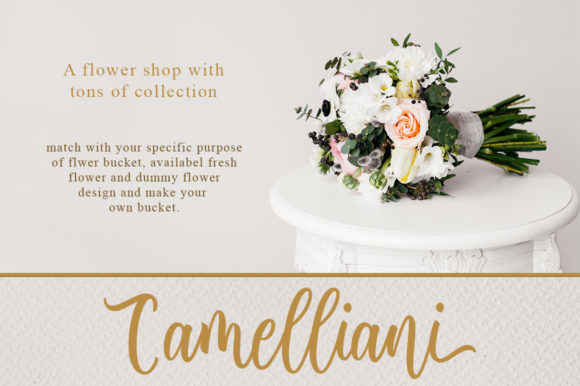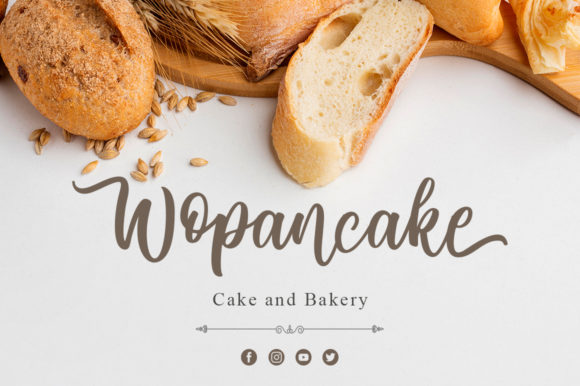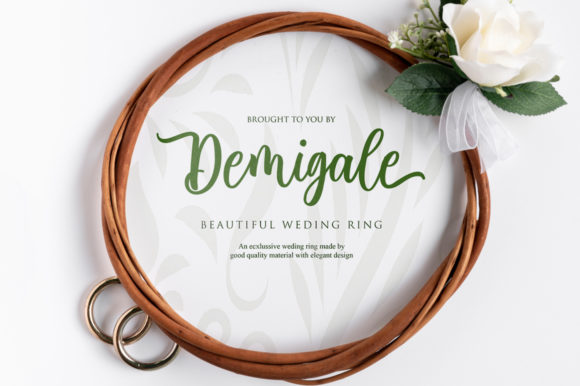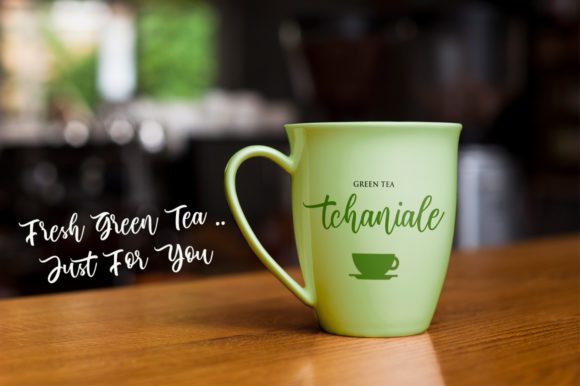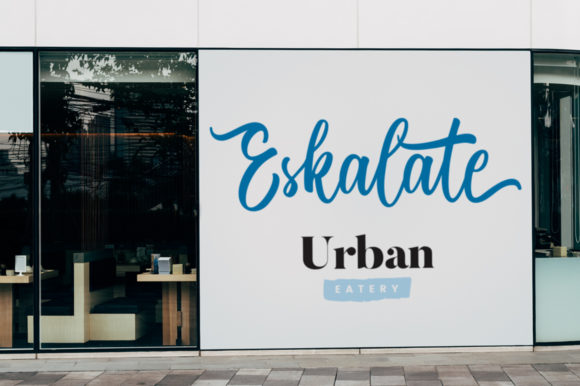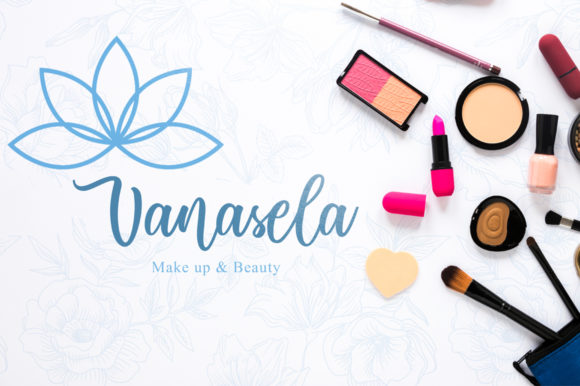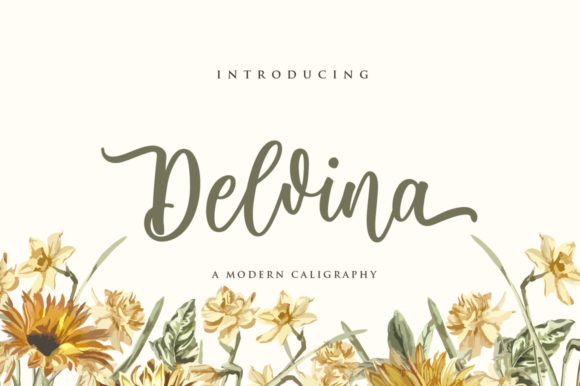
Introducing Delvina Font: Elevate Your Designs with Elegance
Are you on the hunt for a font that exudes sophistication and style? Look no further than Delvina Font, a stunning handwritten font that is sure to capture your heart. With its elegant touch and flowing script, Delvina is the perfect addition to your favorite projects. In this article, we’ll dive into the world of Delvina Font, exploring its unique features, benefits, and uses, and why it’s a must-have for designers and crafters alike.
The Distinctive Style of Delvina Font
Delvina Font boasts an incredibly distinct and timeless style that sets it apart from other fonts. Its elegant, cursive script flows effortlessly across the page, evoking a sense of luxury and refinement. Whether you’re working on a branding project, creating a stylish invitation, or designing a beautiful blog, Delvina Font is the perfect choice. Its unique character is sure to leave a lasting impression on your audience, making your designs stand out from the crowd.
One of the standout features of Delvina Font is its PUA (Private Use Area) encoding. This means that you can access all of the glyphs and swashes with ease, giving you complete creative control over your designs. With PUA encoding, you can effortlessly navigate the font’s extensive character set, including ligatures, alternates, and ornaments. This feature makes it simple to customize your text, adding a personal touch to your projects.
Delvina Font is a versatile font that is perfect for a wide range of design applications. Whether you’re a professional designer, a crafter, or a DIY enthusiast, this font is sure to become a favorite. Here are just a few ways you can use Delvina Font:
- Branding and Logo Design: Create a lasting impression with Delvina Font’s elegant script. Use it to craft a unique logo that reflects your brand’s personality and style.
- Stationery and Invitations: Add a touch of sophistication to your stationery, invitations, and greeting cards. Delvina Font is perfect for creating beautiful, eye-catching designs that will leave a lasting impression.
- Blog and Website Design: Elevate your blog or website with Delvina Font’s flowing script. Use it to create stunning headings, titles, and captions that will engage your audience.
- Crafting and DIY Projects: Delvina Font is also perfect for crafters and DIY enthusiasts. Use it to create beautiful signs, banners, and other decorative items for your home or as gifts.
Why Choose Delvina Font?
With so many fonts available, why choose Delvina Font? Here are just a few reasons why this font stands out:
- Unique and Timeless Style: Delvina Font boasts a distinctive and elegant style that will never go out of fashion.
- Ease of Use: With PUA encoding, accessing glyphs and swashes is easy, making it simple to customize your text.
- Versatility: Delvina Font is perfect for a wide range of design applications, from branding and logo design to crafting and DIY projects.
- High-Quality Design: Delvina Font is designed to the highest standards, ensuring that your designs look professional and polished.
| Font Name | Delvina Font |
| Author | fanastudio |
In conclusion, Delvina Font is a stunning handwritten font that is sure to elevate your designs. With its elegant touch, flowing script, and PUA encoding, this font is perfect for designers and crafters alike. Whether you’re working on a branding project, creating a stylish invitation, or designing a beautiful blog, Delvina Font is the perfect choice. So why wait? Fall in love with Delvina Font’s incredibly distinct and timeless style, and use it to create spectacular designs that will leave a lasting impression.